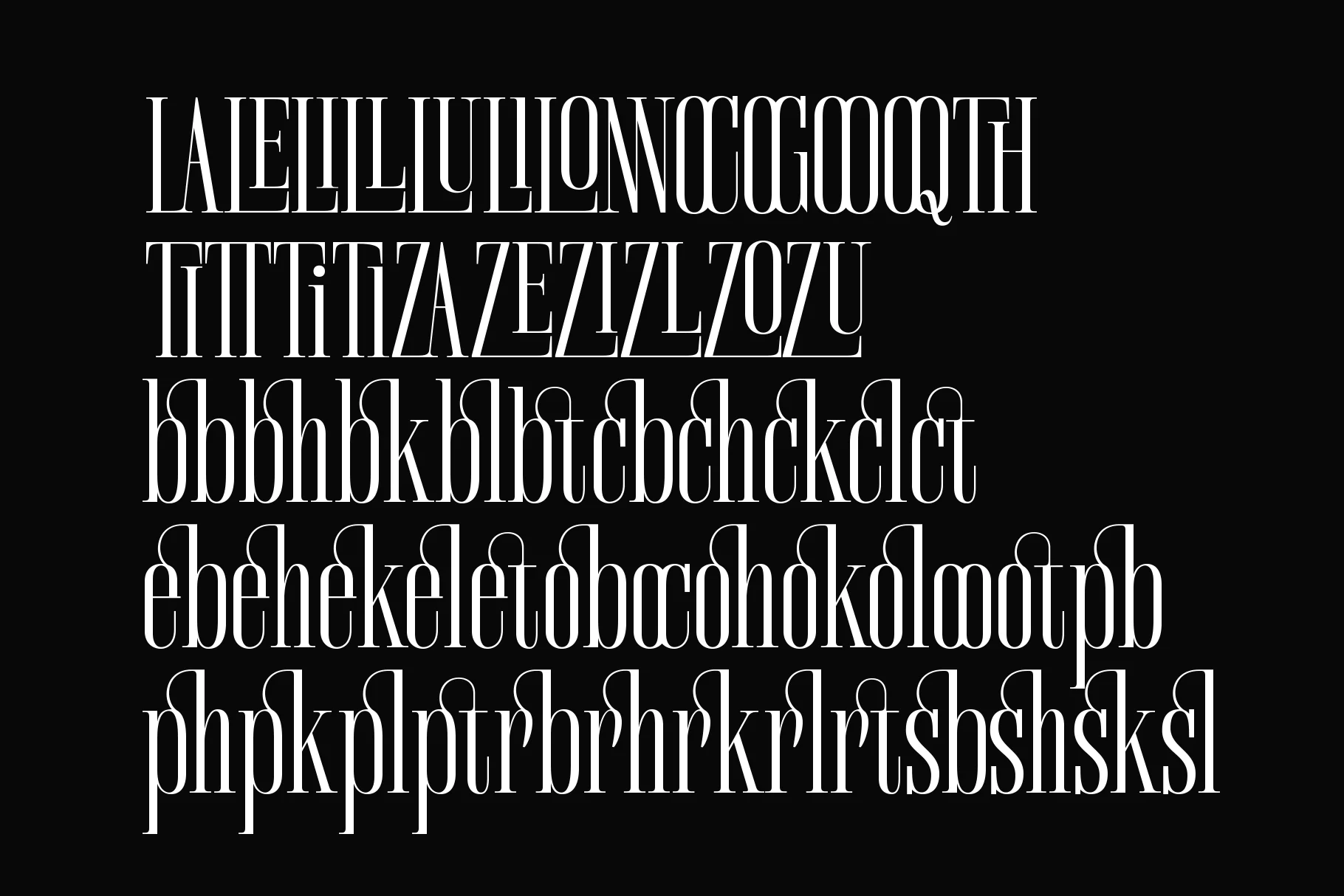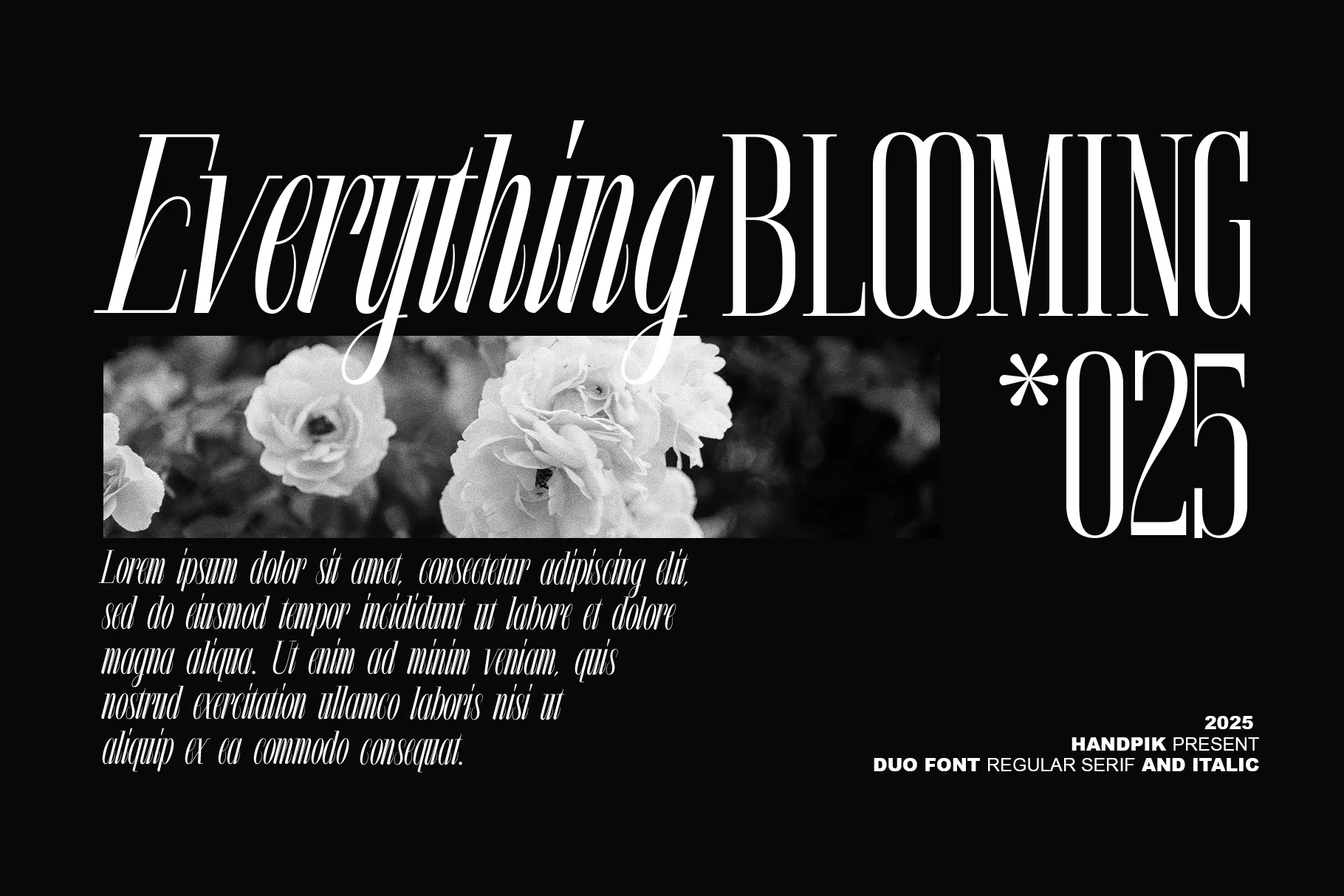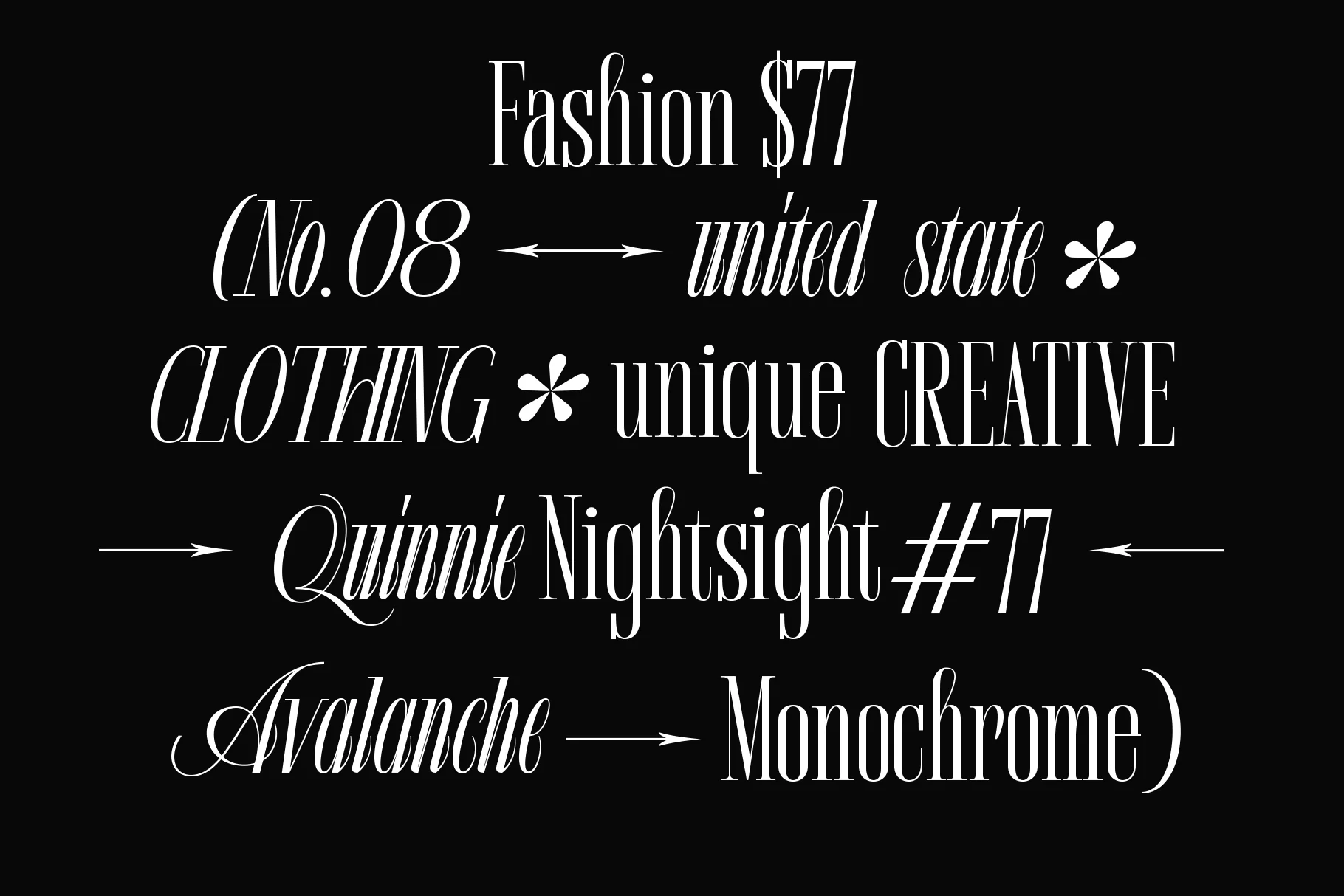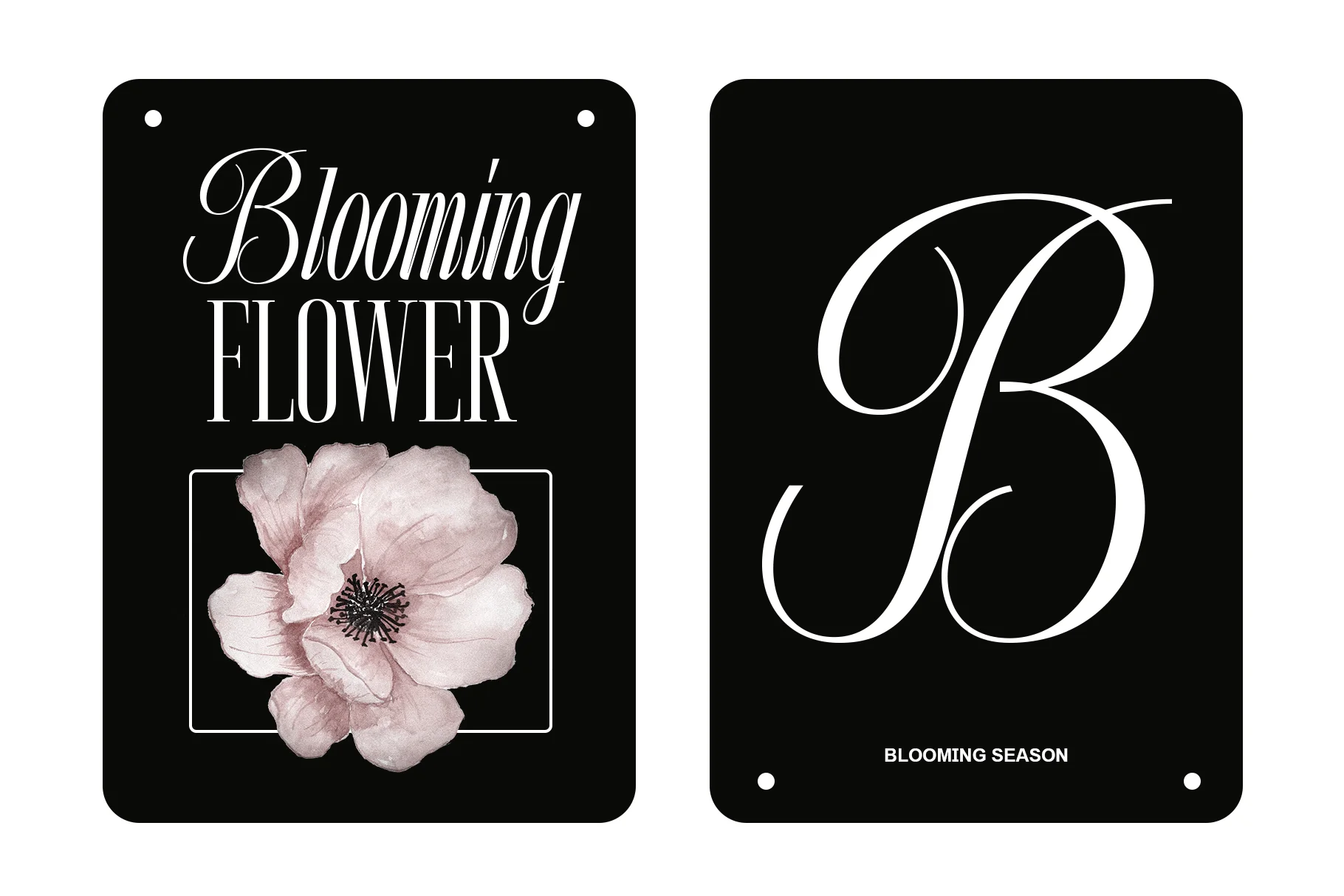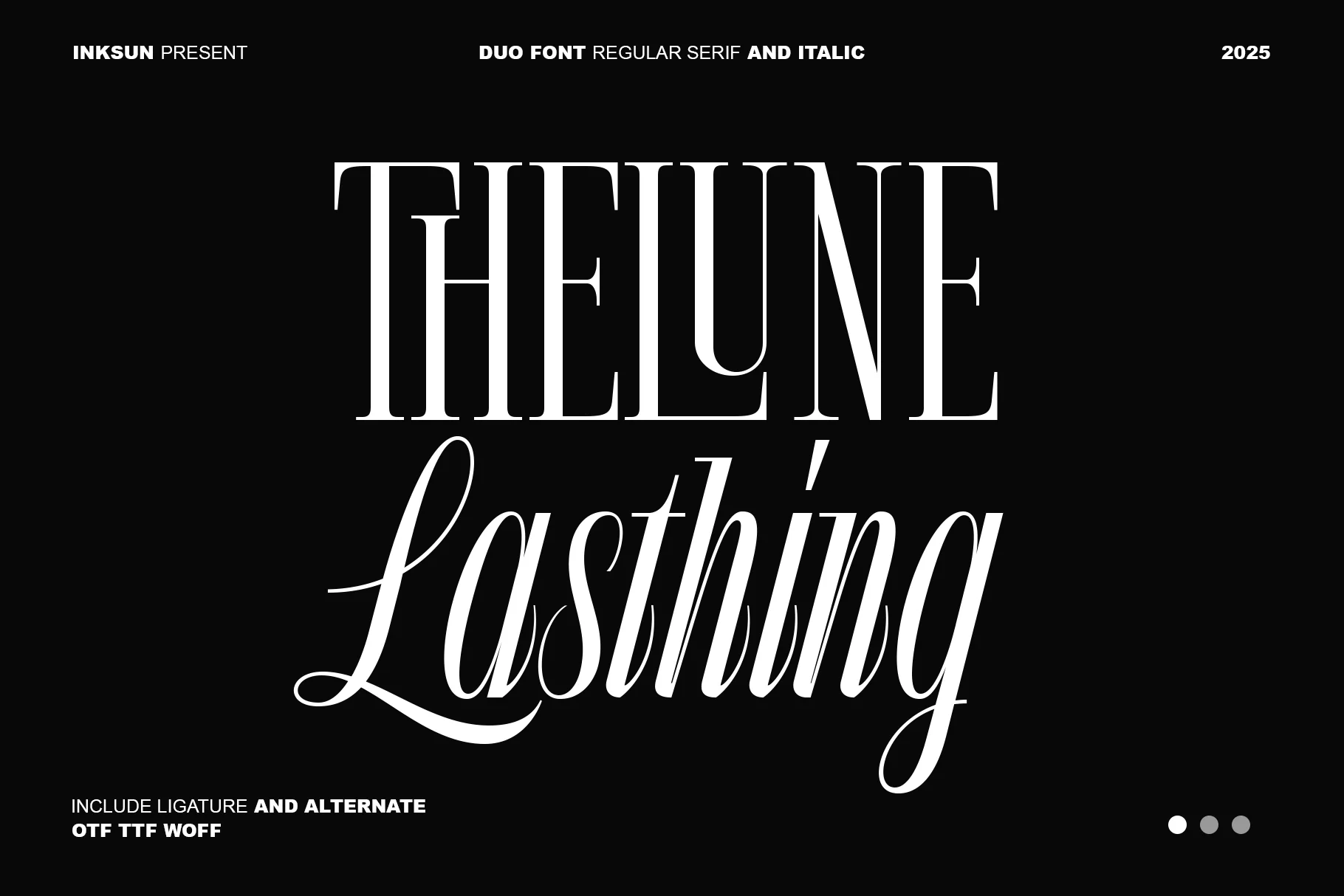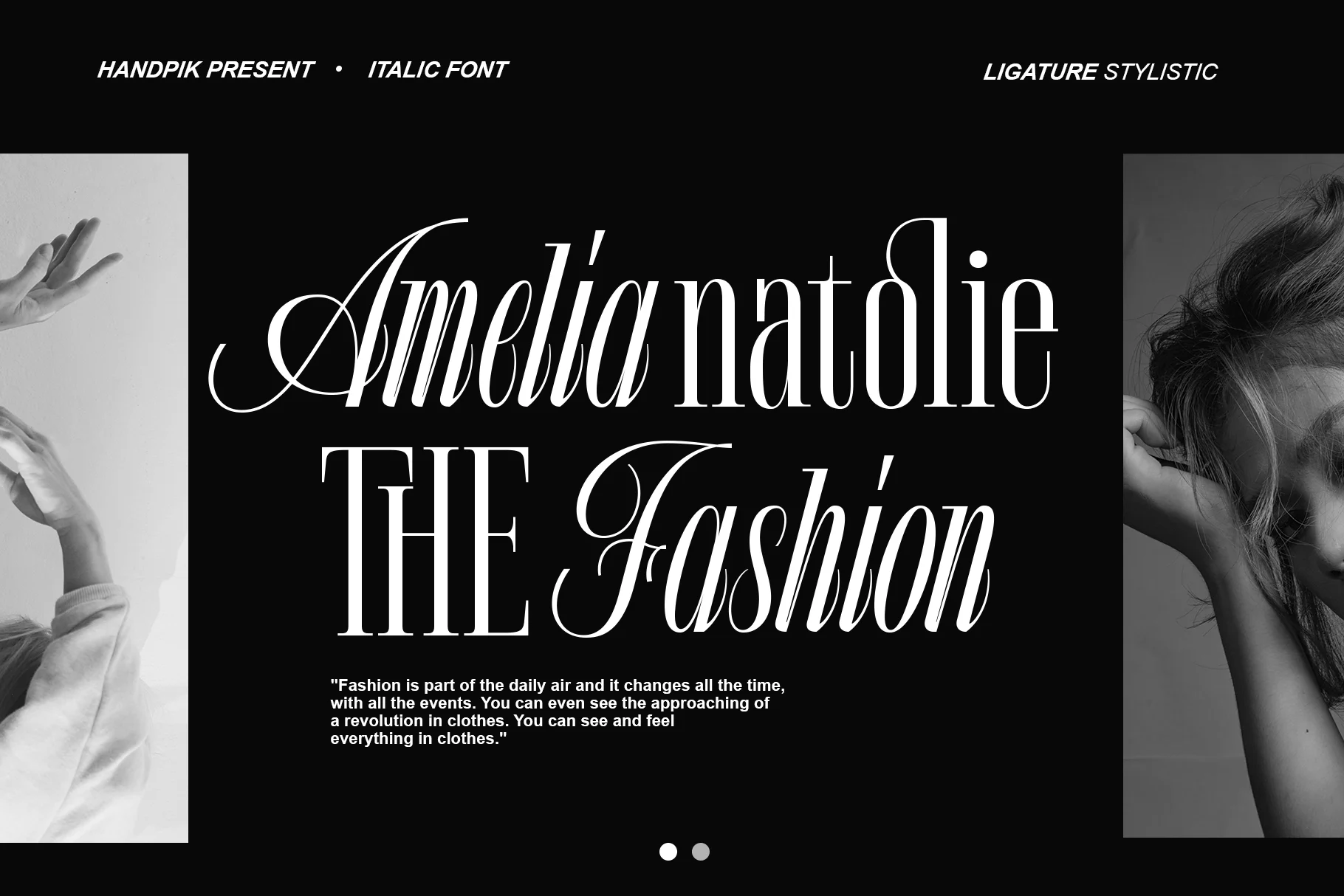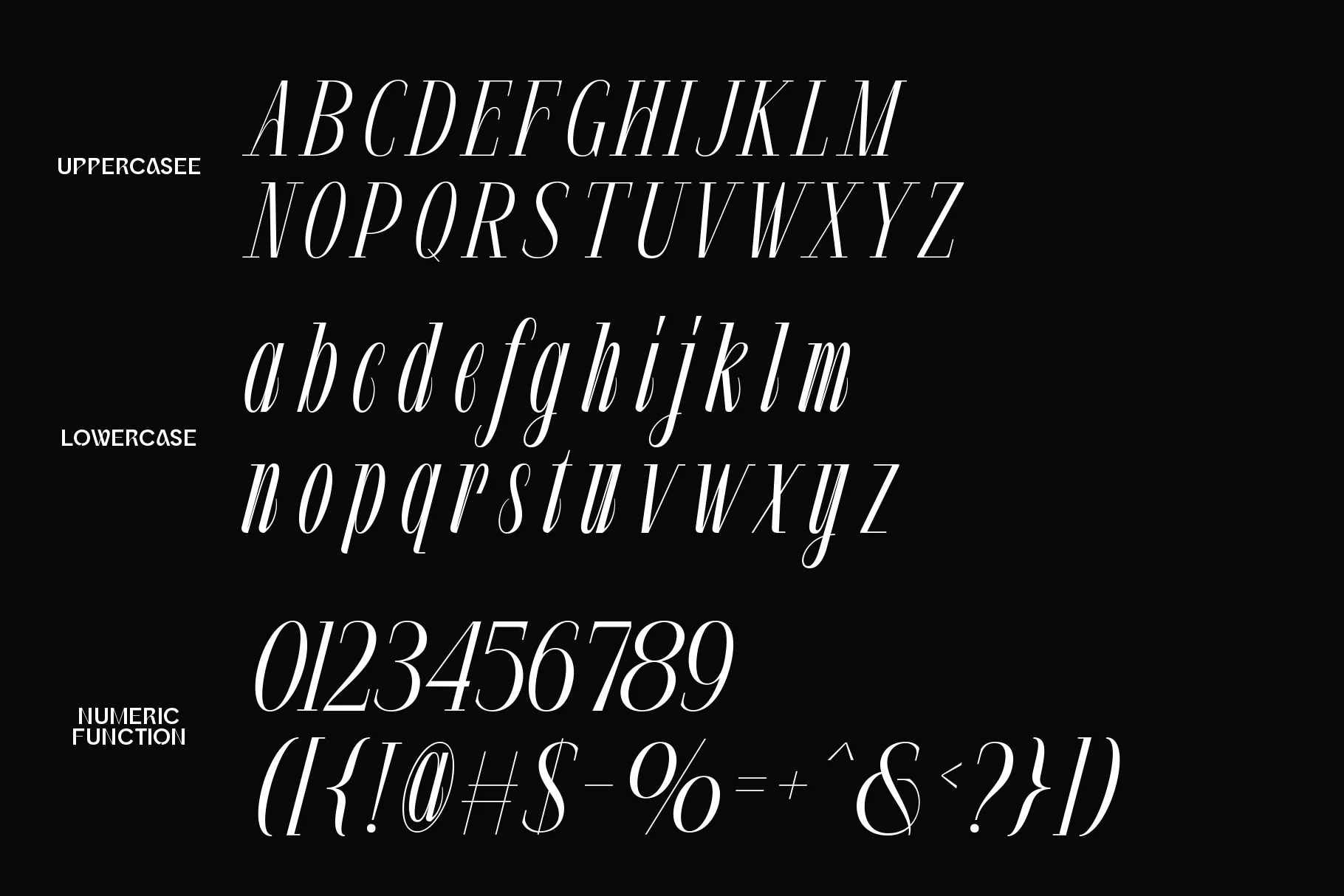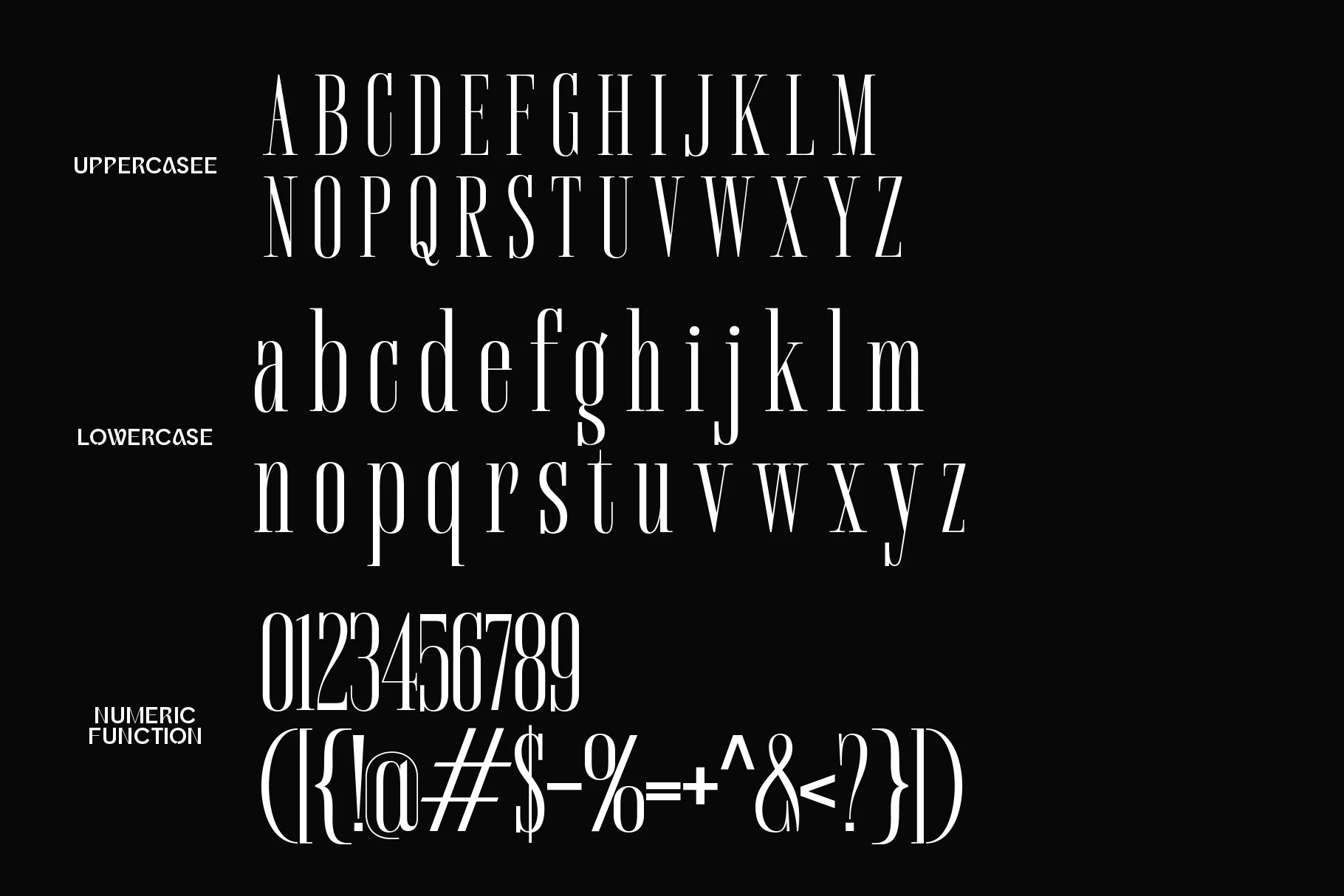
The Lune Lasthing
Quallity Noted will perfect for many project: book, magazines, logo, branding, photography, quotes, blog header, poster, advertisements, etc.